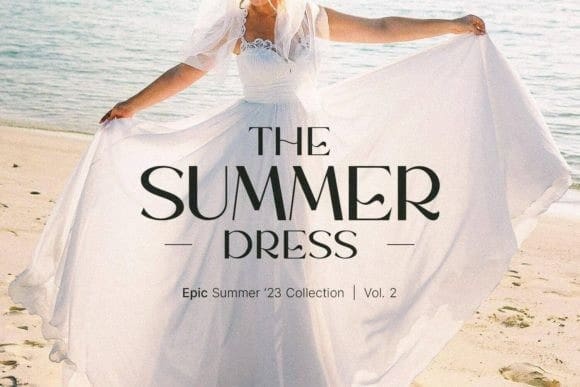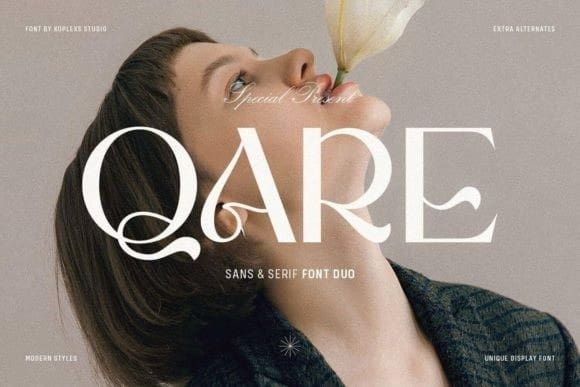
Qare Font
QARE FONT – Beauty Display Serif Font, an exclusive typographic masterpiece crafted by Koplexs Studio. Created with unwavering dedication and meticulous attention to detail, this font possesses an unmatched allure that elevates every one of your designs.
With its sharp elegance and graceful lines, QARE imparts character and charm to every word you type. Its delicate strokes and perfect proportions create a timeless yet contemporary impression, making it a perfect fit for a range of design projects. Available in various styles and sizes, QARE offers limitless flexibility to express your vision.
QARE FONT is designed to exude captivating elegance, making it ideal for projects that demand a touch of luxury. Crafted by experts at Koplexs Studio, QARE stands as a testament to our commitment to quality and aesthetics. With a diverse array of styles and sizes, this font effortlessly adapts to your design needs.
QARE FONT is the perfect choice for all your design requirements. Whether you’re designing a luxurious logo, an attention-grabbing poster, or captivating promotional materials, this font boasts an extraordinary visual allure.